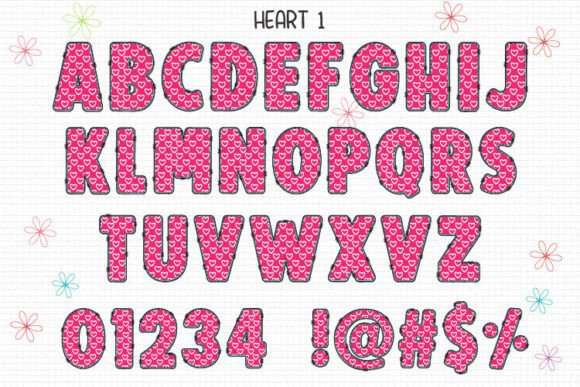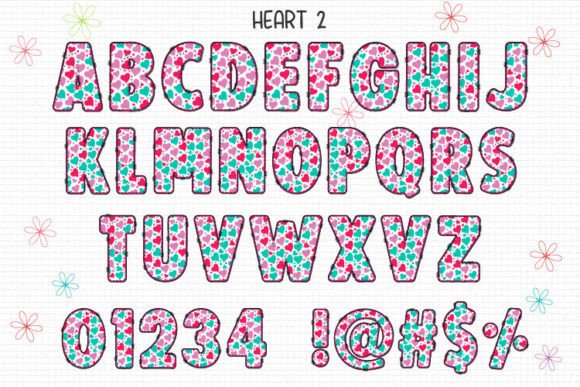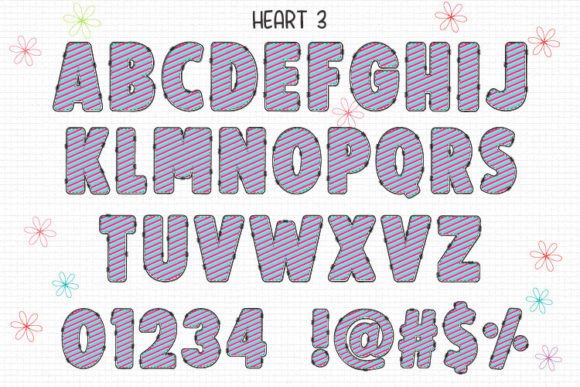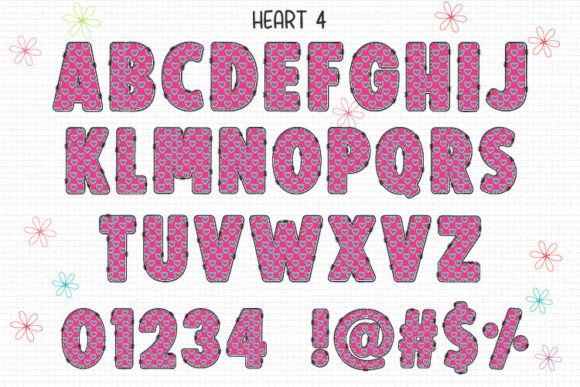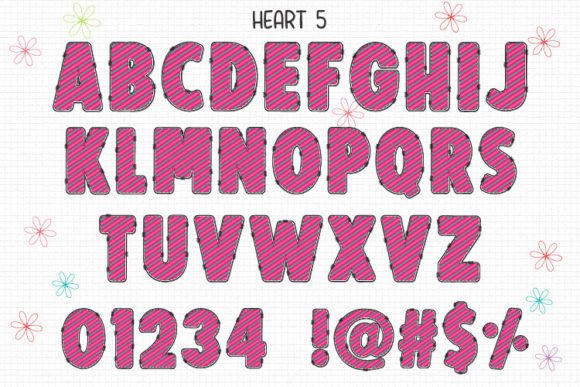
Introducing Heart Font: The Perfect Addition to Your Valentine’s Day Designs
Are you looking for a font that will add a touch of love and sweetness to your designs? Look no further than Heart Font, a beautifully designed color font that is perfect for Valentine’s Day and beyond. This hand-drawn font is full of intricate patterns that represent the day of love, making it a must-have for designers and crafters alike.
A Lovely and Versatile Font
Heart Font is a versatile font that can be used in a variety of ways. Whether you’re creating Valentine’s Day cards, romantic posters, or cute crafts, this font is sure to make your work look super cute. The font is available in both black and color versions, making it easy to use in different design projects.
Using Heart Font in Your Designs
Heart Font is easy to use and can be incorporated into your designs in just a few simple steps. Here are a few tips to get you started:
- Experiment with colors: The color version of Heart Font is perfect for adding a pop of color to your designs. Experiment with different colors and combinations to find the perfect look for your project.
- Mix and match: Heart Font can be paired with other fonts and graphics to create a unique look. Don’t be afraid to experiment and try out different combinations.
Tips for Crafters
If you’re a crafter who loves to work with vinyl, paper, and other materials, Heart Font is a great addition to your design toolkit. Here are a few tips for using Heart Font in your crafting projects:
- Use it for Valentine’s Day cards: Heart Font is perfect for creating romantic Valentine’s Day cards for friends and loved ones.
- Add it to your scrapbooking projects: The color version of Heart Font is great for adding a touch of sweetness to your scrapbooking projects.
- Use it for DIY decor: Heart Font can be used to create cute and romantic DIY decor, such as signs, banners, and wall art.